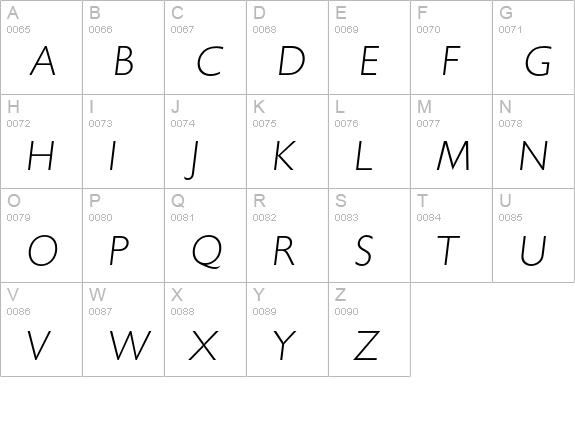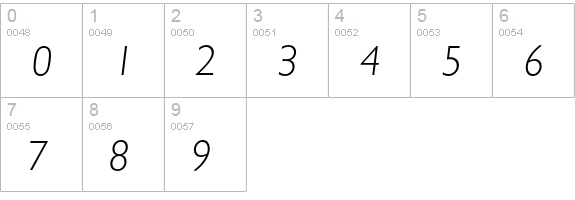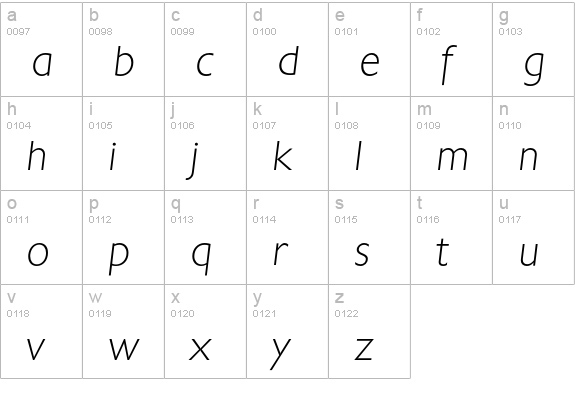
Chantilly-XlightIta Font Details
Chantilly-XlightIta font is a delicate and elegant typeface that exudes sophistication and style. Its slender and graceful letterforms make it perfect for adding a touch of refinement to any design project. With its light weight and italic style, Chantilly-XlightIta font is ideal for creating a sense of elegance and sophistication in various design applications. The best part about Chantilly-XlightIta font is that it is available for free download at FontsMarket.com. This means that you can easily access this beautiful typeface without any cost, making it a valuable addition to your font collection. Whether you are working on a branding project, a wedding invitation, or any other creative endeavor, Chantilly-XlightIta font is sure to elevate your design with its timeless charm and sophistication. Download Chantilly-XlightIta font today and add a touch of elegance to your projects.